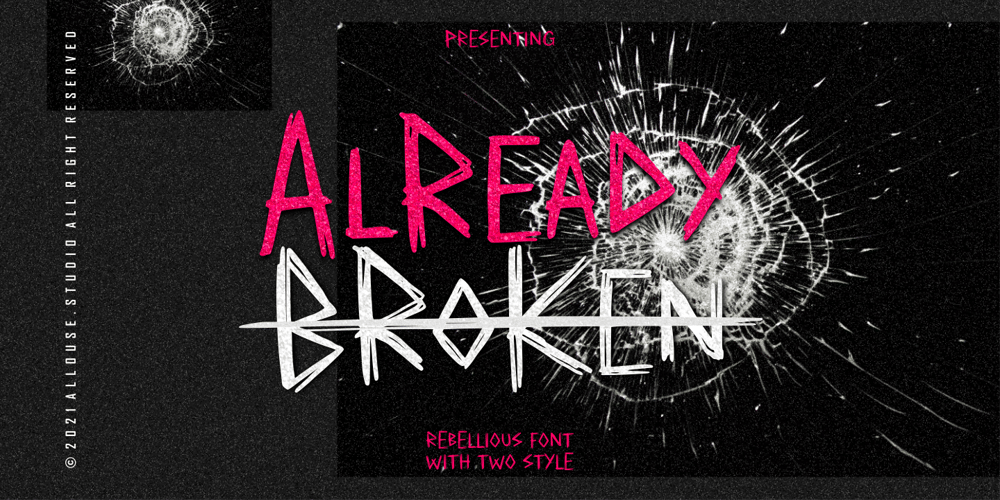
Already Broken Font Family was designed by Fachrizal Yusuf and published by Allouse Studio. Already Broken contains 2 styles and family package options. Already Broken a Rebellious Font With Twos Styles.Scratch : Bring an rebel and anarchy impression.Dull : Bring an rebel impression but more subtle.Already Broken is perfect for any tittles, logo, product packaging, branding project, megazine, social media, wedding, or just used to express words above the background.Already Broken also come with Multi-Lingual Support.Enjoy the font, feel free to comment or feedback, send me PM or email. Thank You!